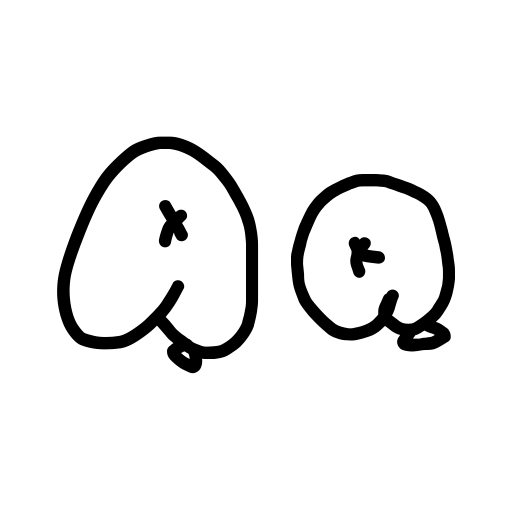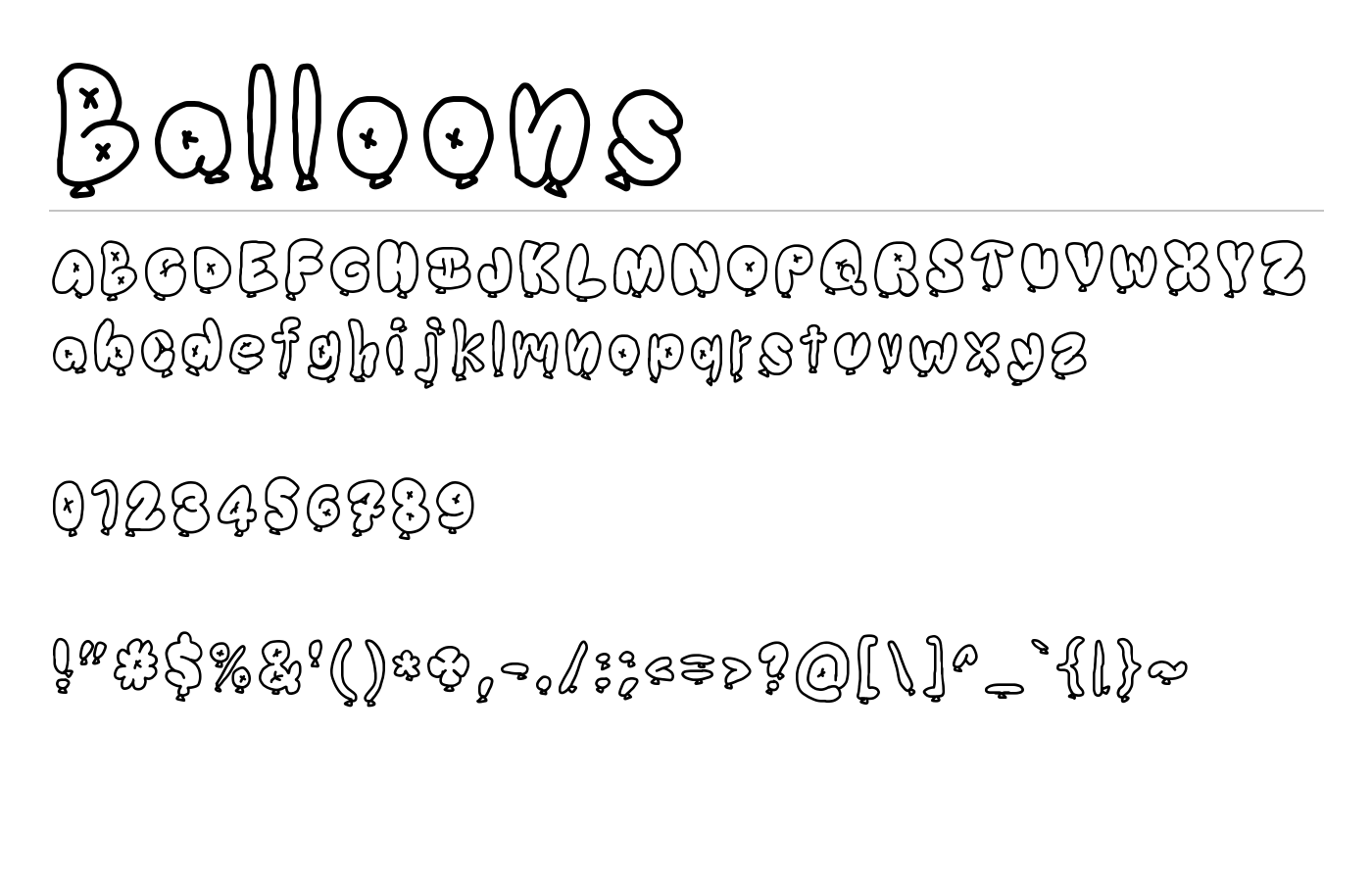
Balloons Font is a playful, hand-drawn sans serif typeface that mimics the rounded, inflated shapes of balloons, giving it a fun and whimsical feel. Its casual, uneven lines and quirky details make it perfect for children’s parties, greeting cards, or any project that seeks to convey joy and lightheartedness in a visually engaging way. This font works best in headlines, logos, and invitations where a lively and informal style is desired.
Balloons Font